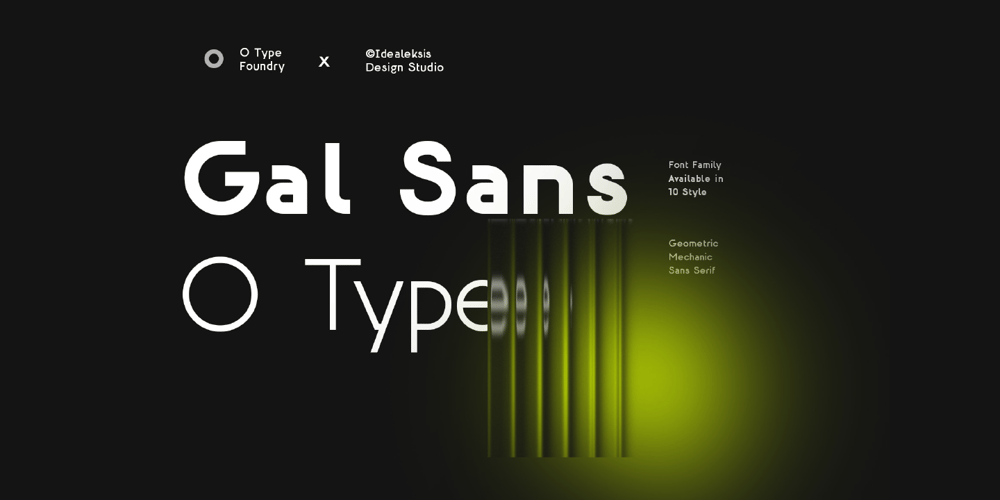
Gal Sans O Type Font Family was designed by Galang Persada and published by O Type Foundry. Gal Sans O Type contains 10 styles and family package options. O Type Foundry published the unique ‘Geometric Mechanic Sans Serif’ in 2023, a typeface that Galang Persada had been perfecting since 2013.Attention all graphic designers! Are you tired of using the same old fonts and design elements in your projects? Look no further than Gal Sans, the newest geometric mechanic sans serif font on the market. With its clean lines and modern aesthetic, Gal Sans is the perfect addition to any designer’s toolkit. Its versatility makes it suitable for a wide range of design projects, from logos to website text. Plus, its minimalist design adds an elegant touch to any composition. Don’t settle for ordinary – elevate your designs with Gal Sans. Try it out today!